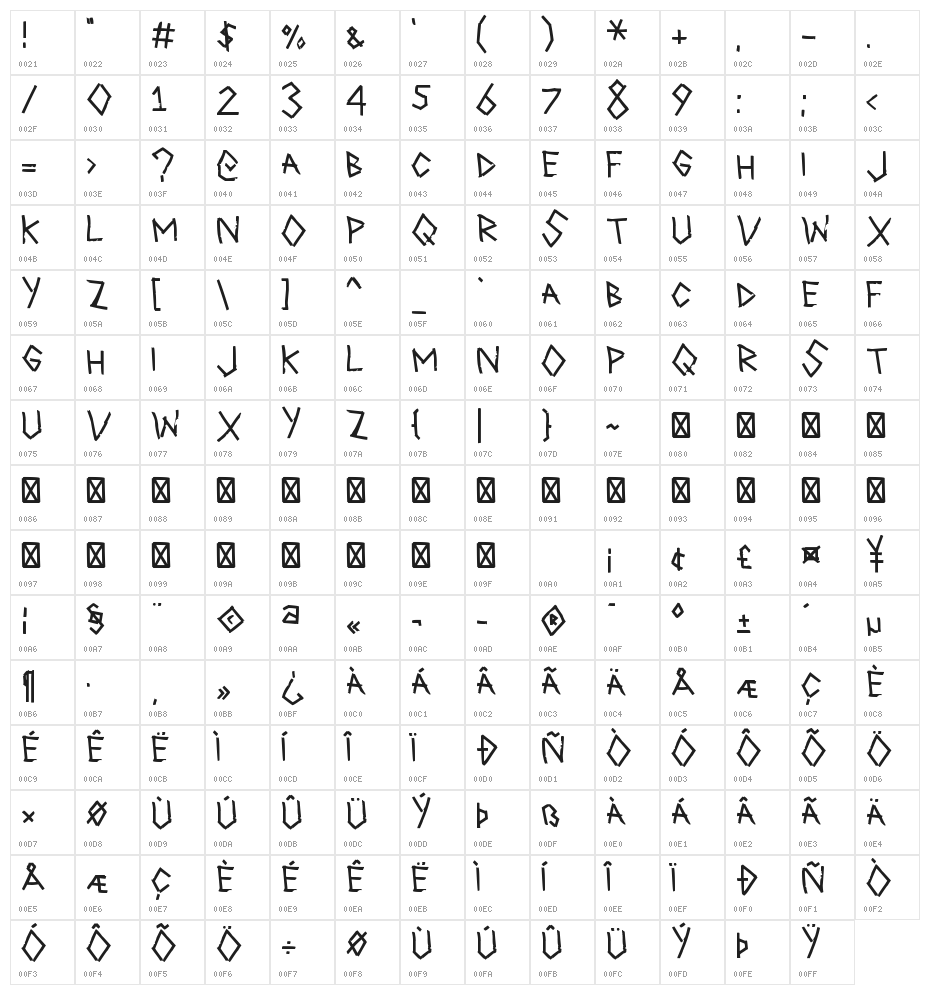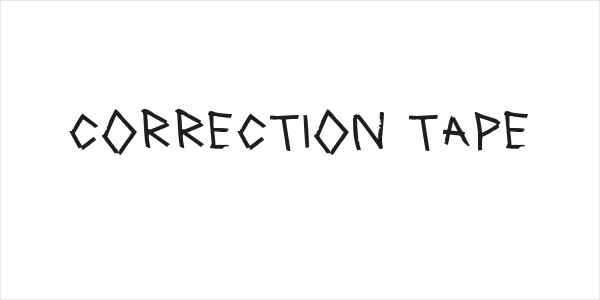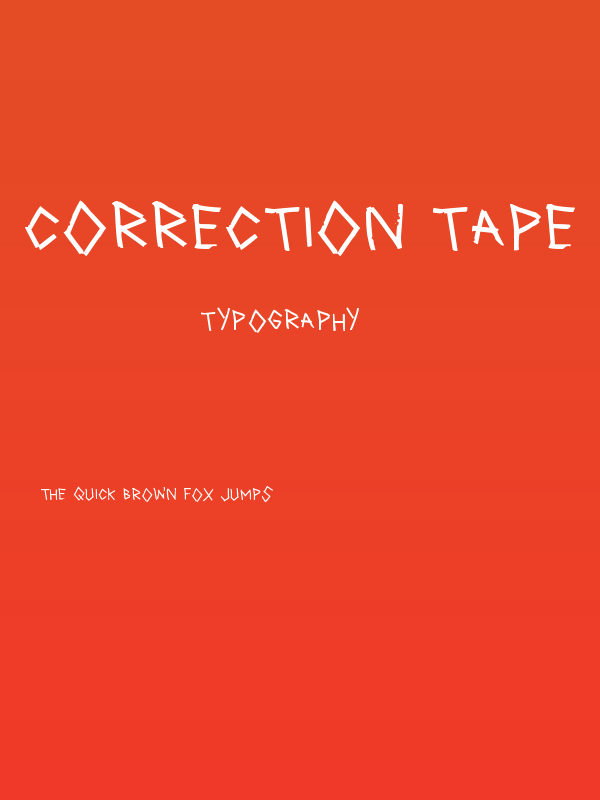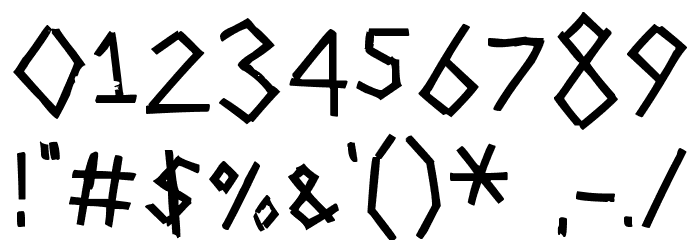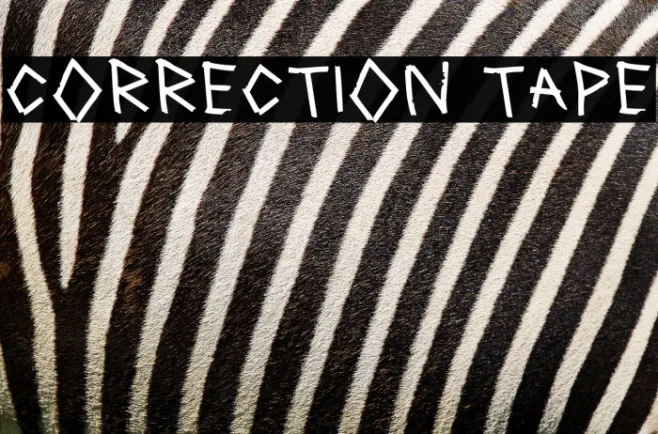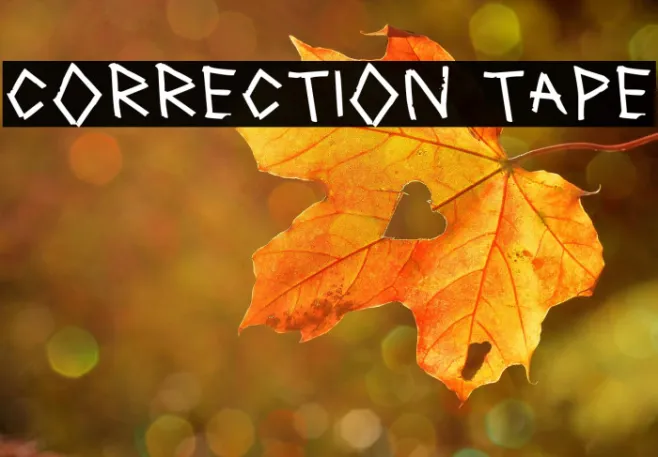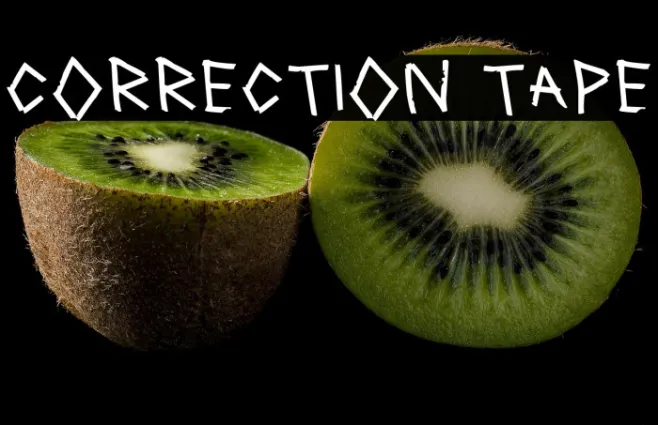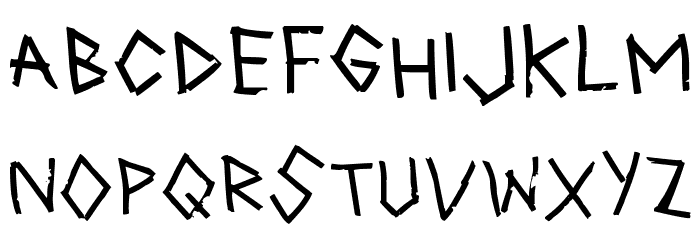
Correction Tape Font
Correction Tape Description
This font features a bold, hand-drawn style with a rough, textured appearance, reminiscent of strokes made with a marker or brush. The characters are slightly irregular, giving them a dynamic and energetic feel. The uppercase and lowercase letters maintain a consistent style, with angular lines and sharp edges. Numbers and special characters follow the same aesthetic, ensuring uniformity across all glyphs. This font's unique, edgy look makes it stand out, ideal for projects that require a strong visual impact.
| Proposed Projects | Ideal for posters, album covers, graffiti art, and edgy branding projects. |